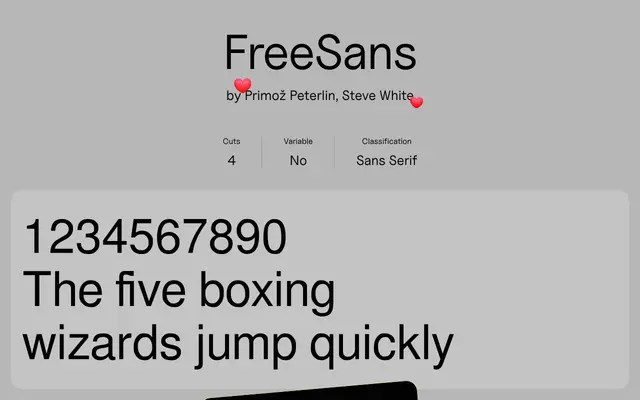
FreeSans
A libre grotesque sans-serif by Primož Peterlin and Steve White, released under the GNU General Public License v2.0 and available in four cuts.
FreeSans is a general-purpose grotesque sans available in four styles and distributed freely under GPL v2.0. It offers broad script coverage and permits commercial use, modification and redistribution, making it a practical option for projects with open licensing requirements. It lacks variable font support and sits firmly in utilitarian territory rather than refined type design.
Classified as Sans Serif on the page; FreeSans is a libre grotesque sans-serif with broad character coverage, consistent with a general-purpose grotesque style.